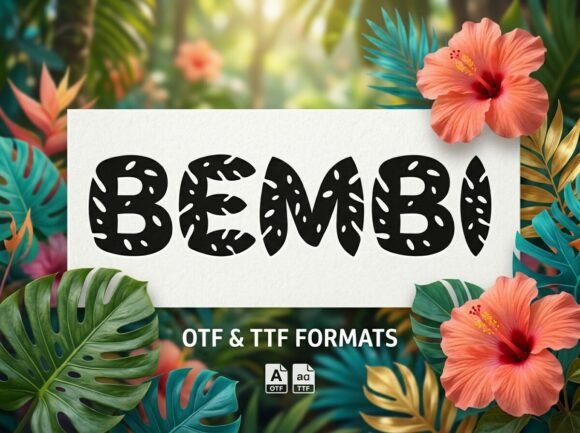
Unlocking Creative Potential with Bembi Font
I still remember the frustration of working on a design project, only to hit a roadblock when it came to finding the perfect font. My client wanted something that would make their brand stand out, but everything I found seemed either too bland or too over-the-top. That’s when I stumbled upon the Bembi Font, and it was like a breath of fresh air. With its unique artistic elements and strong character, it’s been a game-changer for my design work ever since.
An Honest Review of Bembi Font
• ✨ Unique Artistic Elements: The Bembi Font boasts a distinct style that adds a touch of sophistication to any project.
• ✅ High-End Aesthetic: It’s perfect for delivering a professional look without compromising on personality.
• 💼 Versatility: From bold headlines to creative branding and packaging, this font adapts seamlessly.
⚠️ One thing to keep in mind is that the Bembi Font is an all-caps display typeface. This means it doesn’t include lowercase letters, which might limit its use for body text but makes it incredibly powerful for logos, titles, and decorative initials.
🤔 Another consideration is that to fully leverage its features, you’ll need design software that supports OpenType features. However, this is more of a minor adjustment in workflow rather than a limitation.
The Story Behind Bembi Font
The Bembi Font was inspired by a desire to merge classic typographic elements with modern design sensibilities. Its creator aimed to produce a font that would stand out in any layout, providing a unique touch to creative projects. The result is a decorative display font that exudes professionalism and personality.
Q: Is Bembi Font suitable for body text?
A: While Bembi Font excels as a display typeface for titles and headings, it’s not designed for extensive body text due to its all-caps design and decorative nature.